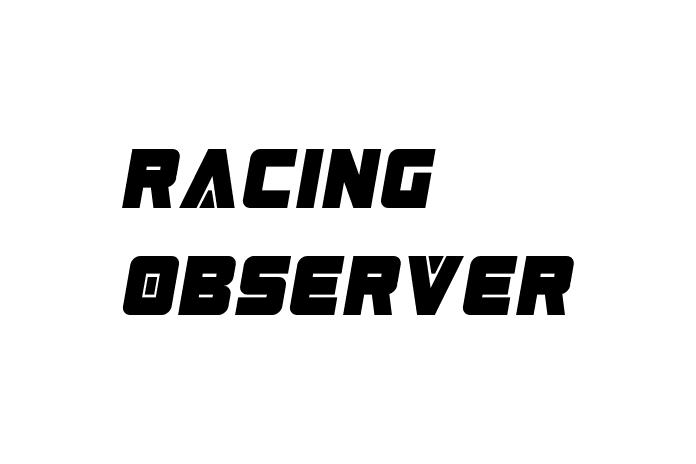
Gaz
Gaz Free
Introducing the modern Gaz Font, is a cool and modern techno looking display Font This font is ideal for writing web designs, business cards, or pretty much anything else that requires a unique touch, this font designed by is available for free download and personal use.
Typeface classification Techno